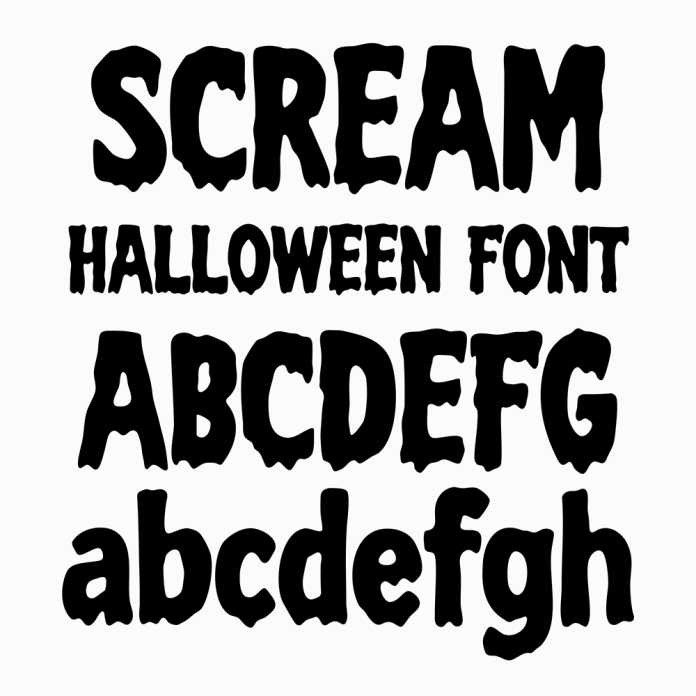
BFC Scream Spooky Halloween Drip Zombie Font is a unique and eerie font design perfect for Halloween-themed projects. It features dripping letters with a spooky and zombie-like aesthetic, making it ideal for adding a creepy touch to posters, invitations, and social media graphics. This decorative serif font is sure to give your designs a hauntingly fun vibe.